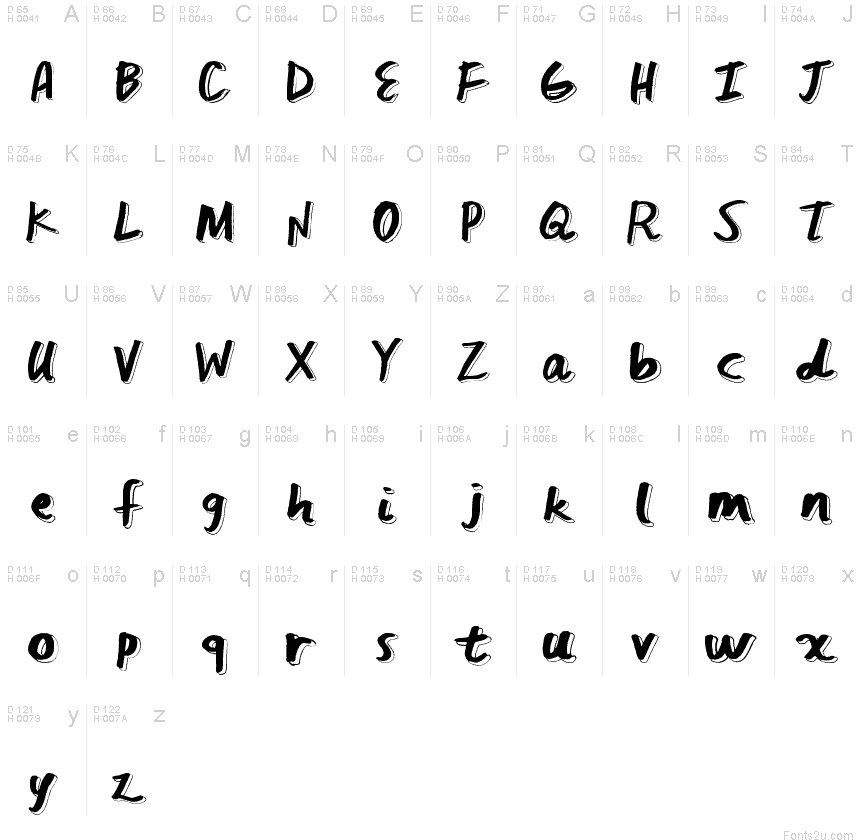
Feed The Bears, designed by Max Infeld of Xerorapher Type Foundry, is a free handwritten display font with broad, uneven strokes and a restless baseline. The letters lean and swell in different directions, with rough edges that retain the quickness of marker-drawn lettering. Loose offset outlines create a lively doubled contour around the letterforms.
It is especially convincing on gig posters, where its oversized shapes supply the raw immediacy of hand-rendered artwork. The same unruly finish suits streetwear graphics and record covers. Those shifting outlines also echo sketch lines, letting the type become part of the illustration on event merchandise.
Feed The Bears